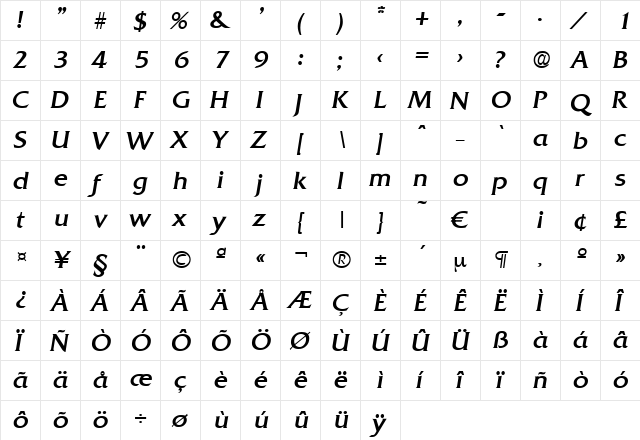
Quadrat-RegularIta Regular
Quadrat-RegularIta offers clean, dependable letterforms without strong stylistic allegiance, making it a practical choice for designers who need flexibility.